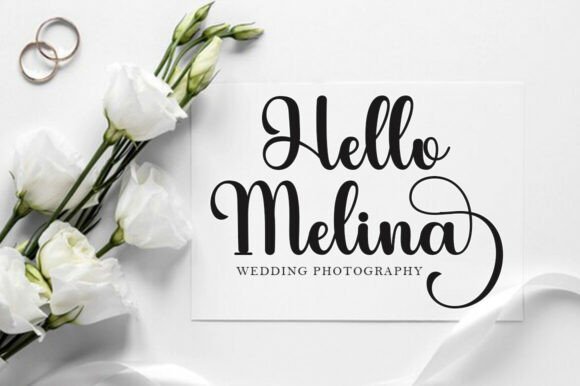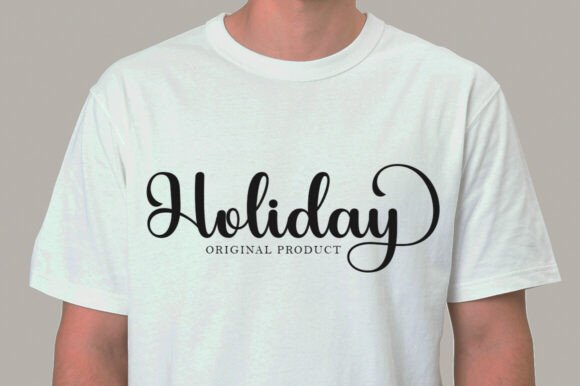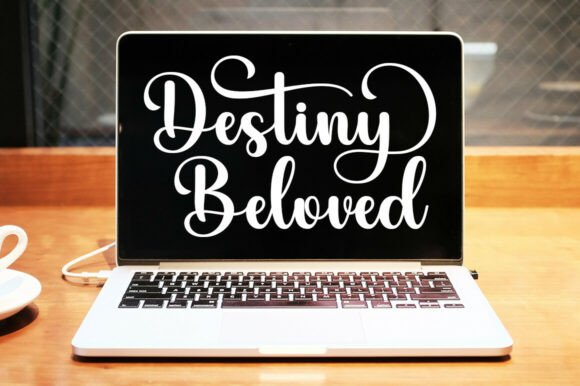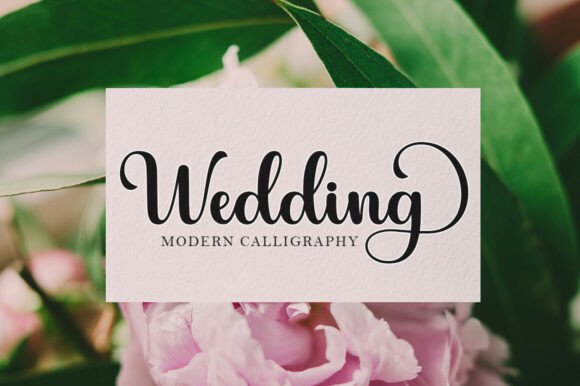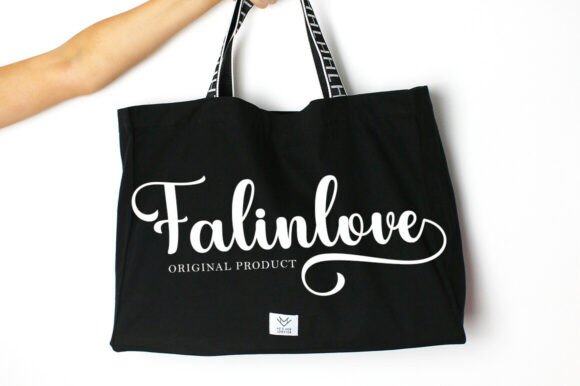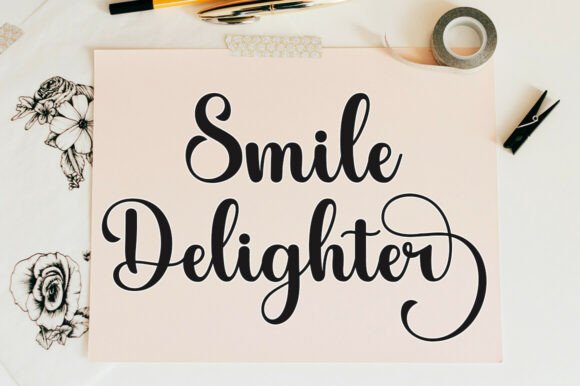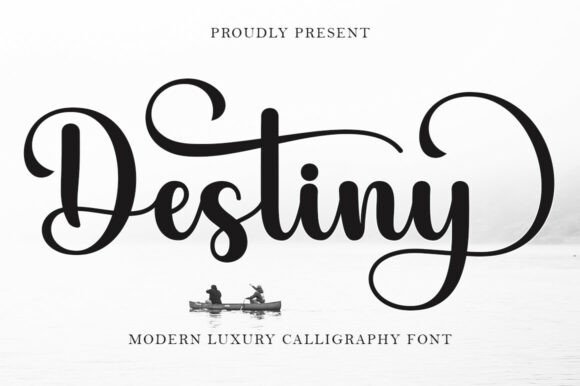
Introducing Destiny Font: Elevate Your Designs with a Delicate Handwritten Touch
In the world of typography, a well-crafted font can make all the difference in elevating your design from ordinary to extraordinary. If you’re a designer, crafter, or DIY enthusiast looking for a unique and cool font to add a personal touch to your projects, look no further than Destiny Font. This delicate handwritten font is carefully crafted to bring a touch of elegance and sophistication to your designs, making it perfect for a wide range of applications.
What is Destiny Font?
Destiny Font is a beautiful, handwritten font designed to bring a sense of whimsy and charm to your designs. With its delicate lines and intricate details, this font is perfect for creating unique and eye-catching text that stands out from the crowd. Whether you’re looking to add a personal touch to your letters, invitations, food products, titles, or any other design project, Destiny Font is the perfect choice.
Key Features of Destiny Font
- Delicate Handwritten Style: Destiny Font boasts a beautiful, handwritten style that adds a touch of elegance and sophistication to your designs.
- Unique and Cool Design: With its intricate details and delicate lines, Destiny Font is sure to make your designs stand out from the crowd.
- Versatile: This font can be used for a wide range of applications, including letters, invitations, food products, titles, and more.
- Easily Readable: Despite its delicate nature, Destiny Font is easily readable, making it perfect for both digital and print designs.
Uses of Destiny Font
Destiny Font is a versatile font that can be used in a variety of design projects. Here are some ideas to get you started:
- Wedding Invitations: Add a touch of elegance and sophistication to your wedding invitations with Destiny Font.
- Food Blogging: Use Destiny Font to create beautiful and eye-catching titles for your food blog or recipe posts.
- Stationery: Create unique and personalized stationery with Destiny Font, perfect for letters and notes.
- Branding: Use Destiny Font to create a unique and memorable brand identity for your business or product.
- Crafting: Add a personal touch to your crafting projects, such as handmade cards, gift tags, and more.
Tips for Using Destiny Font
Here are some tips for getting the most out of Destiny Font:
- Pair with Other Fonts: Pair Destiny Font with other fonts to create a unique and interesting contrast.
- Use for Headings and Titles: Use Destiny Font for headings and titles to add a touch of elegance and sophistication.
- Keep it Simple: Don’t be afraid to keep it simple and use Destiny Font on its own for a clean and elegant look.
In conclusion, Destiny Font is a beautiful and versatile font that is perfect for designers, crafters, and DIY enthusiasts looking to add a touch of elegance and sophistication to their designs. With its delicate handwritten style, unique and cool design, and versatility, Destiny Font is sure to become a favorite in your font collection. So why wait? Download Destiny Font today and start elevating your designs to the next level!